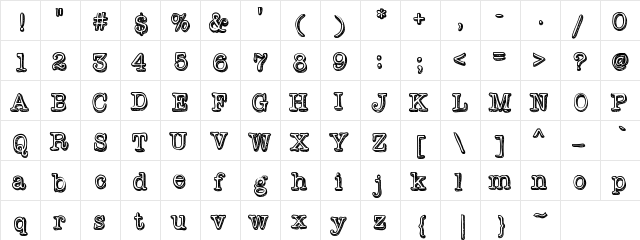
VintageOne Medium
Design Context for VintageOne Typeface
VintageOne has the warm character of retro typography — evoking diners, record sleeves, and the golden age of print advertising.
Font Pairing: Combine VintageOne with a simple slab or neutral sans — period-accurate companions reinforce the vintage feel without competing for attention.
Pro Tip: Use VintageOne for headlines and pull quotes rather than body copy — its personality is best appreciated in short, focused bursts.